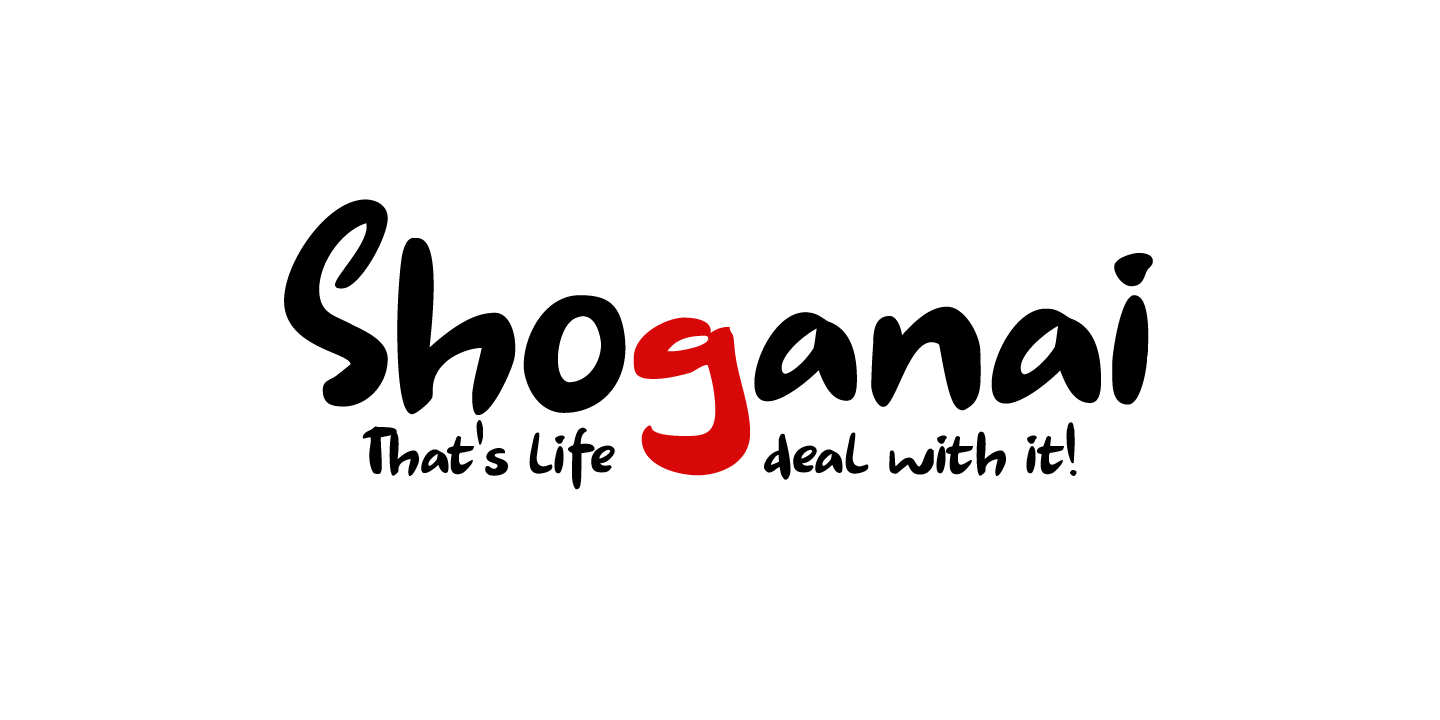
Shoganai Fonyt is perfect for Japanese cultural centers, zen meditation spaces, minimalist philosophy brands, mindfulness applications, acceptance therapy materials, Japanese restaurants, tranquil spa services, philosophical publications, and any project requiring typography with serene acceptance and peaceful Japanese wisdom aesthetics.
What makes Shoganai Fonyt exciting is its philosophical serenity that captures the profound Japanese concept of acceptance and letting go with letterforms that embody the peaceful resignation and wisdom found in embracing life's unchangeable circumstances. This contemplative typeface reflects the zen-like beauty of accepting what cannot be helped with balanced proportions that convey tranquility, mindfulness, and the elegant simplicity of Japanese philosophical traditions. The font's serene character and cultural sophistication make it perfect for projects celebrating mindfulness, acceptance, and the timeless wisdom of Japanese spiritual philosophy.
The Shoganai Fonyt family includes light, regular, and medium weights, featuring complete uppercase and lowercase alphabets, numerals, punctuation marks, and zen-inspired design elements. The font maintains consistent peaceful elegance throughout all weights while ensuring excellent readability for both contemplative headlines and mindful text applications in wellness and cultural contexts.
Whether you're designing for meditation centers, creating mindfulness content, or developing philosophical branding with Japanese aesthetic wisdom, Shoganai Fonyt Free Download delivers unmatched serene sophistication and cultural depth to your projects. This remarkable typeface transforms ordinary text into expressions of peaceful acceptance that honor the profound beauty of Japanese philosophical traditions and the healing power of letting go. The font's contemplative character makes it ideal for wellness brands, cultural institutions, and mindfulness practitioners. Download this exceptional font today and bring the tranquil wisdom of Japanese acceptance philosophy to your design projects with authentic cultural sophistication and shoganai serenity.